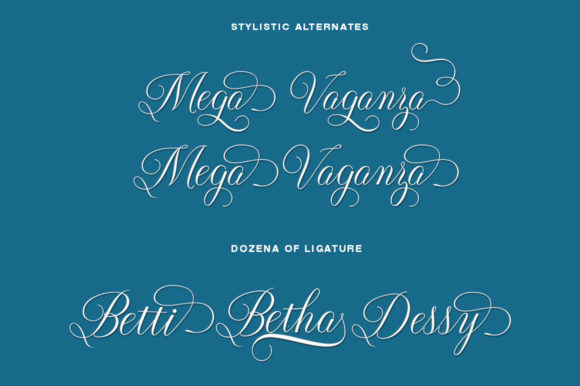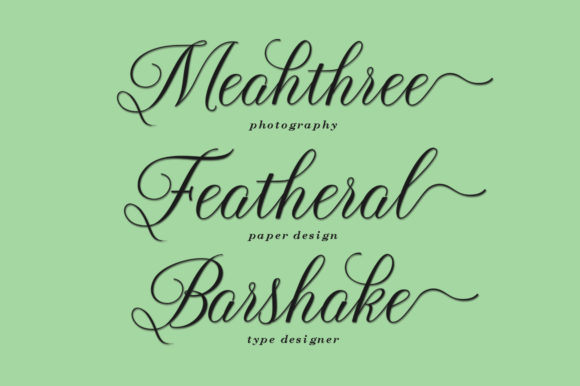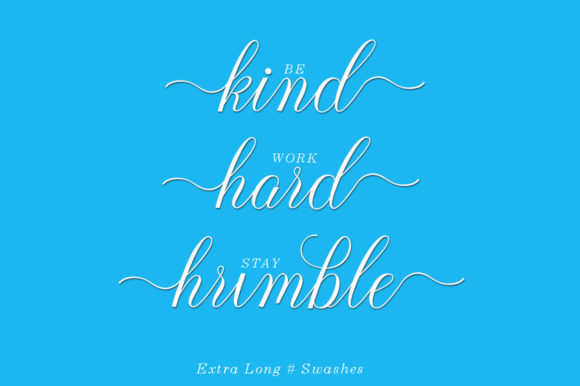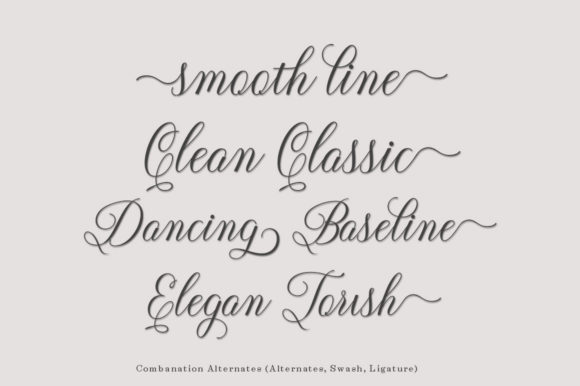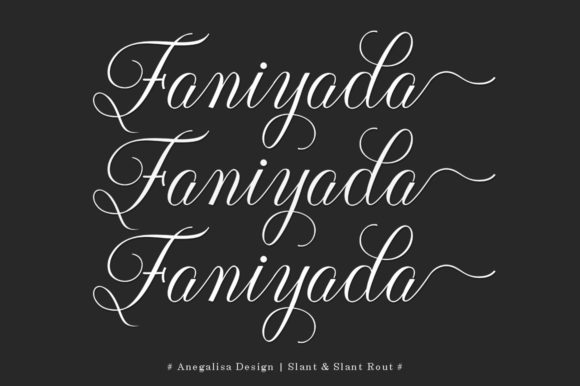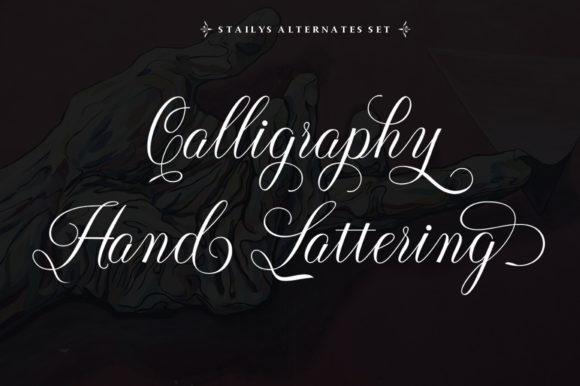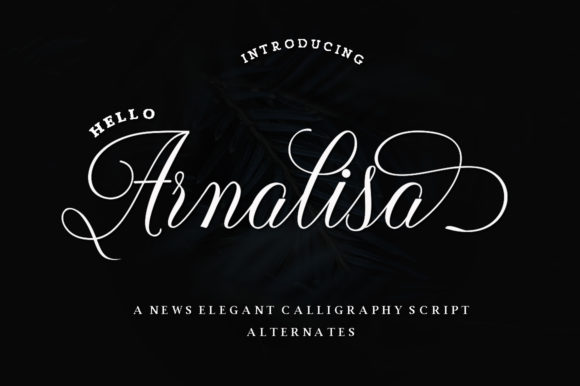
Introducing Arnalisa Font: The Epitome of Luxurious Cursive Calligraphy
In the realm of typography, few fonts manage to convey the essence of luxury and sophistication as effectively as Arnalisa. This stunning cursive calligraphy style script is a masterpiece of modern font design, boasting an upscale and chic aesthetic that elevates any design project to new heights. Whether you’re a seasoned designer or a crafty DIY enthusiast, Arnalisa is sure to captivate your audience with its elegant flair and refined beauty.
The Characteristics of Arnalisa Font
Arnalisa is a meticulously crafted font that embodies the very essence of luxurious calligraphy. Its cursive style is characterized by:
- Flowing Connections: Arnalisa’s letters are connected by delicate strokes, creating a sense of fluidity and movement that adds to its dynamic charm.
- Elegant Swashes: The font features beautifully designed swashes that add a touch of sophistication and glamour to any text.
- Refined Letterforms: Each letter in the Arnalisa font is carefully crafted to exude a sense of refinement and poise, making it perfect for high-end designs.
Perfect for Upscale and Chic Designs
Arnalisa’s luxurious style makes it an ideal choice for designers and crafters looking to create upscale and chic designs. Here are just a few examples of projects where Arnalisa truly shines:
- Wedding Invitations: Add a touch of elegance to your wedding invitations, save-the-dates, and other stationery with Arnalisa’s sophisticated script.
- Branding and Packaging: Elevate your brand’s luxury appeal with Arnalisa’s refined typography, perfect for high-end product packaging, labels, and marketing materials.
- Signage and Displays: Make a statement with Arnalisa’s eye-catching script, ideal for storefront signs, banners, and display cases.
Tips for Using Arnalisa Font Effectively
To get the most out of Arnalisa, keep the following tips in mind:
- Pair with Neutrals: Balance Arnalisa’s luxurious style with neutral colors and clean design elements to avoid overwhelming the senses.
- Experiment with Swashes: Take advantage of Arnalisa’s elegant swashes to add visual interest and create a unique look.
- Use for Headlines: Arnalisa’s cursive script is perfect for headlines and titles, where its luxurious style can make a lasting impression.
Arnalisa font is a true masterpiece of modern calligraphy, offering a luxurious and chic aesthetic that’s perfect for upscale designs. With its elegant letterforms, flowing connections, and refined swashes, Arnalisa is sure to captivate your audience and elevate your design projects to new heights. Whether you’re a designer, crafter, or DIY enthusiast, Arnalisa is an excellent addition to your typographic arsenal.